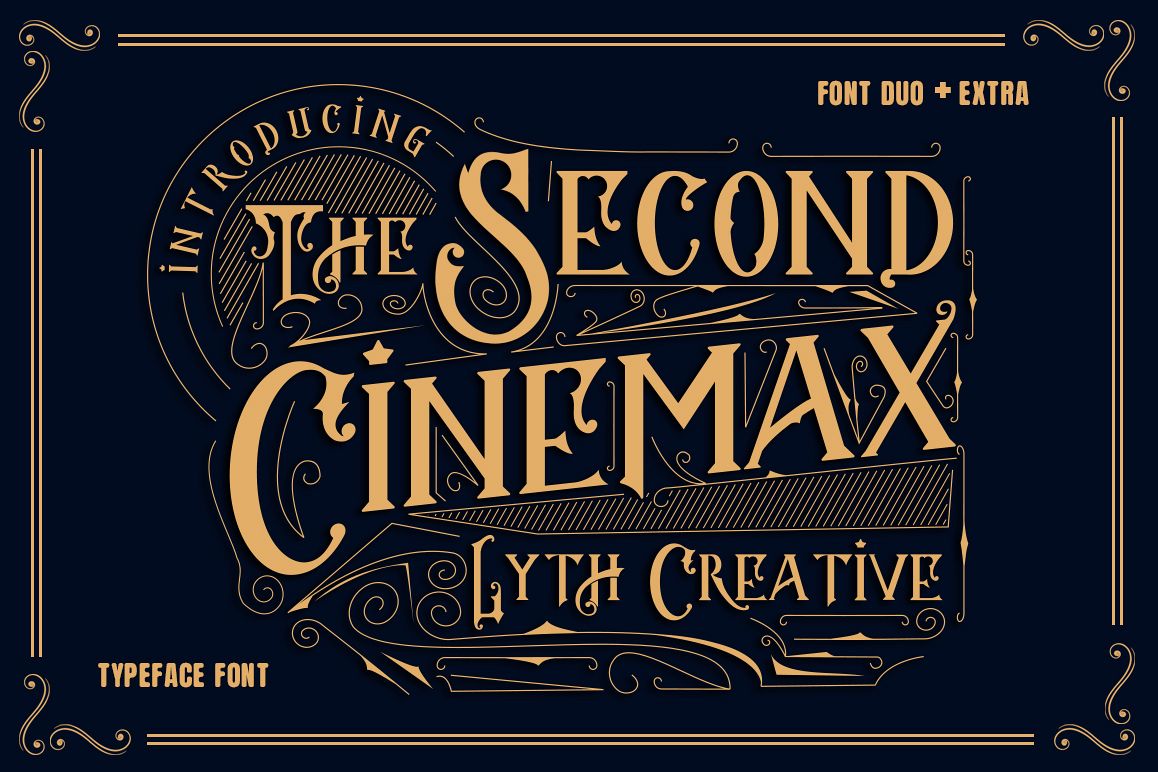
The Second Cinemax
The Second Cinemax is perfect for vintage logo design, headlines or packaging design. The product also includes a doodle vector . This extra allows you to easily build beautiful logo design designs in a short time.